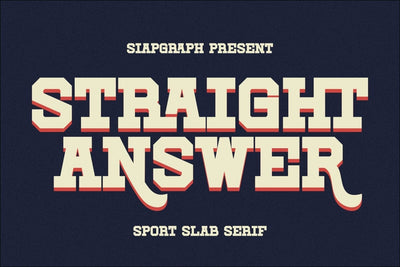
Straight Answer - Sport Slab Serif Font
Straight Answer is a bold and sporty slab serif font designed to deliver a direct and impactful message. Its clean lines and strong letterforms make it perfect for creating eye-catching designs for quotes, posters, stickers, stamp design, logo branding and apparel mockup like t-shirts, sweaters, mug, tote bags and sportwear.